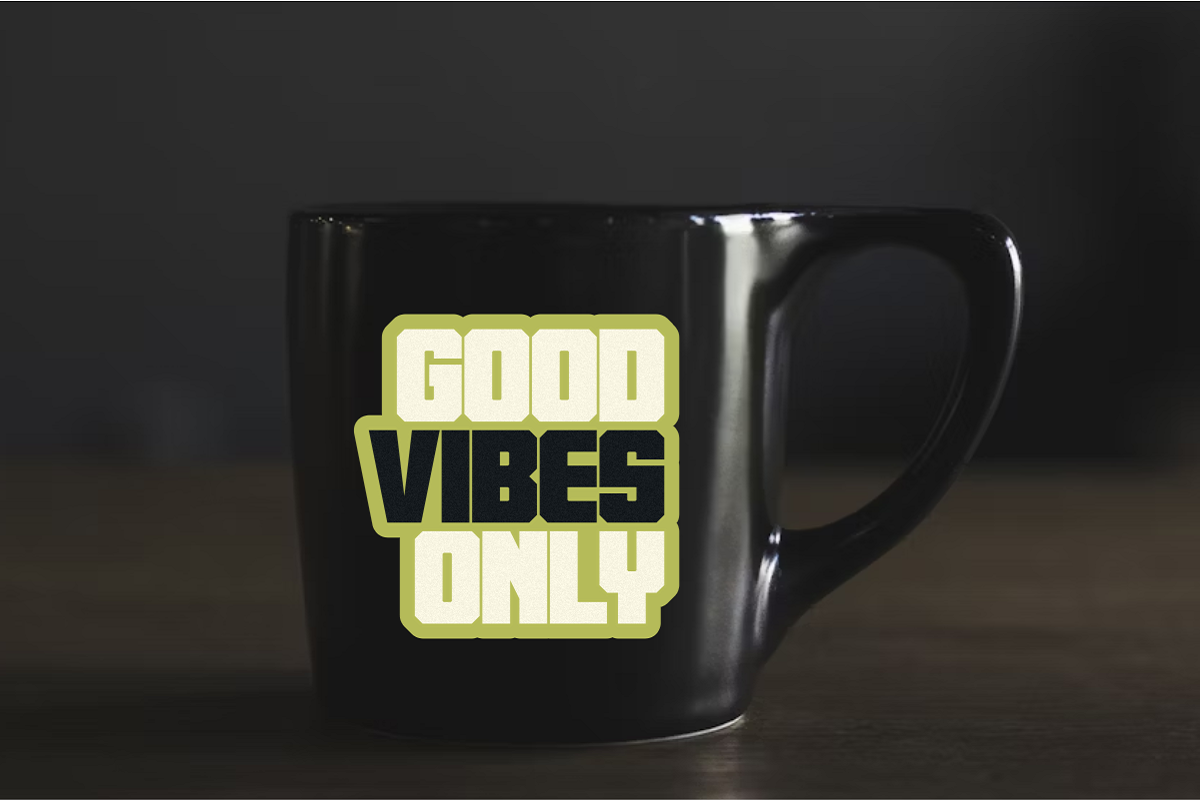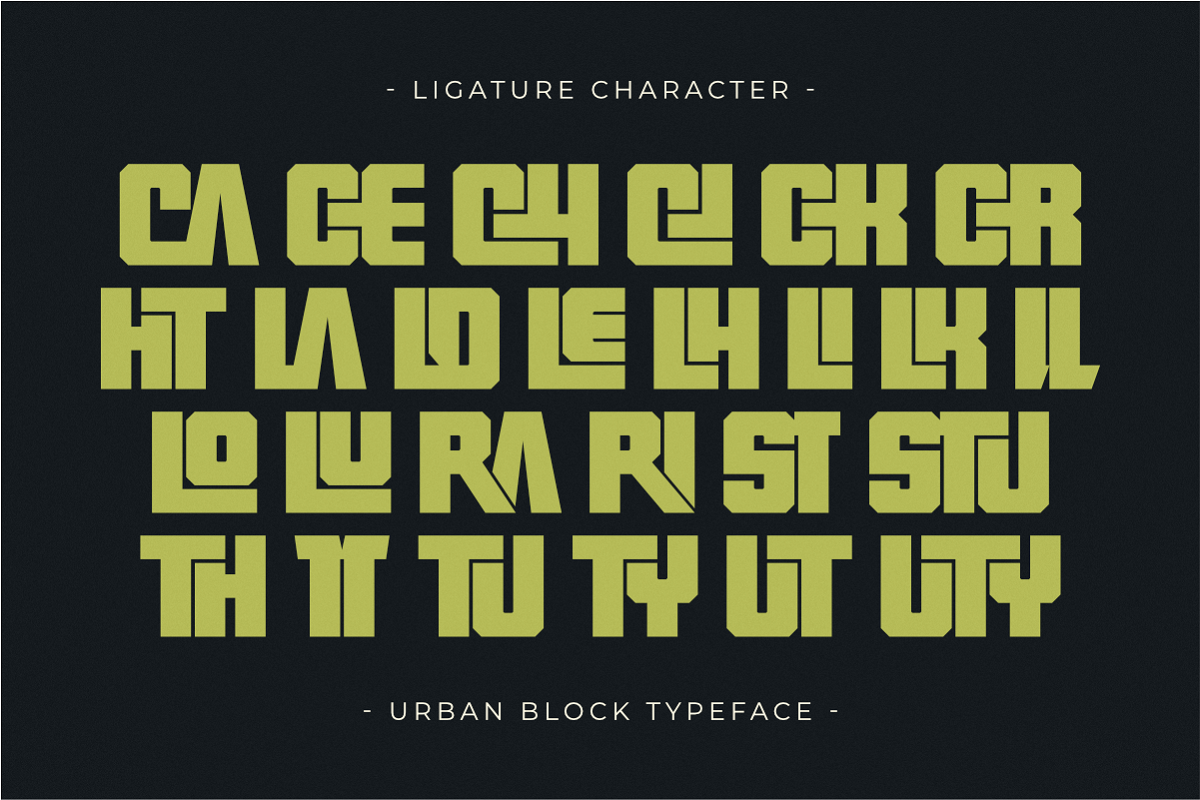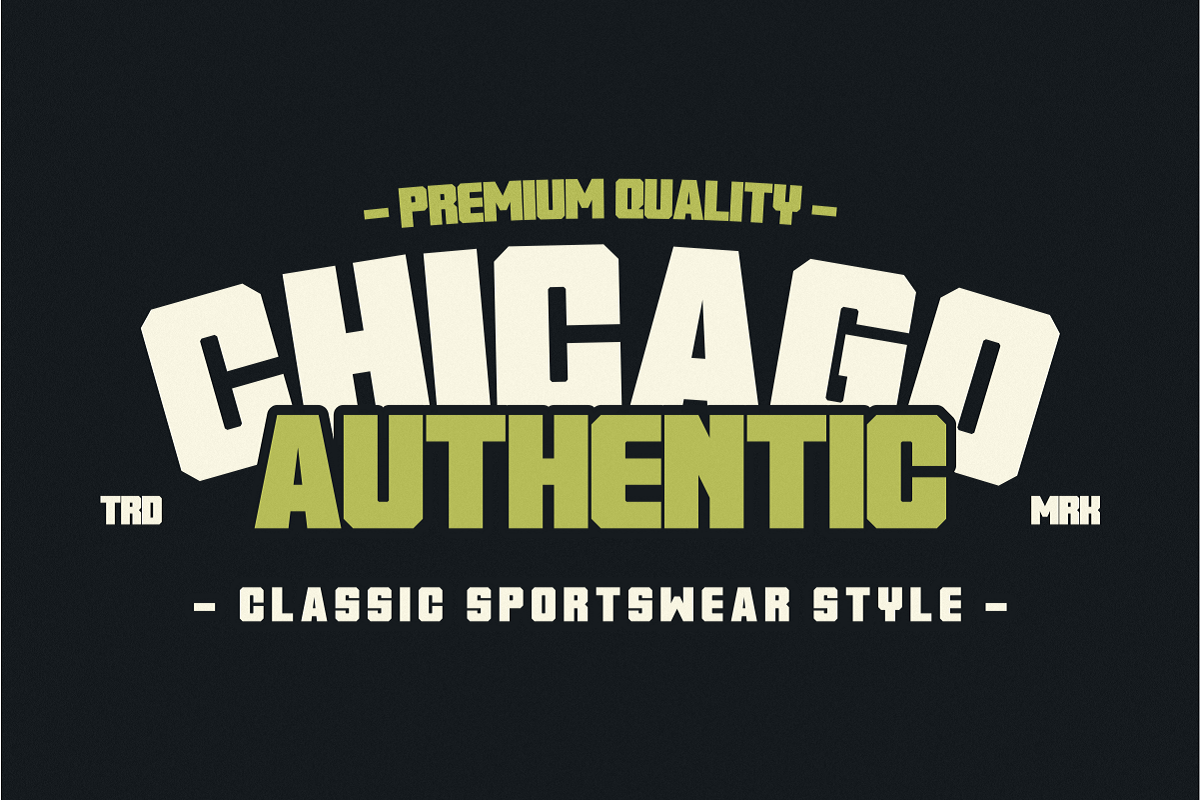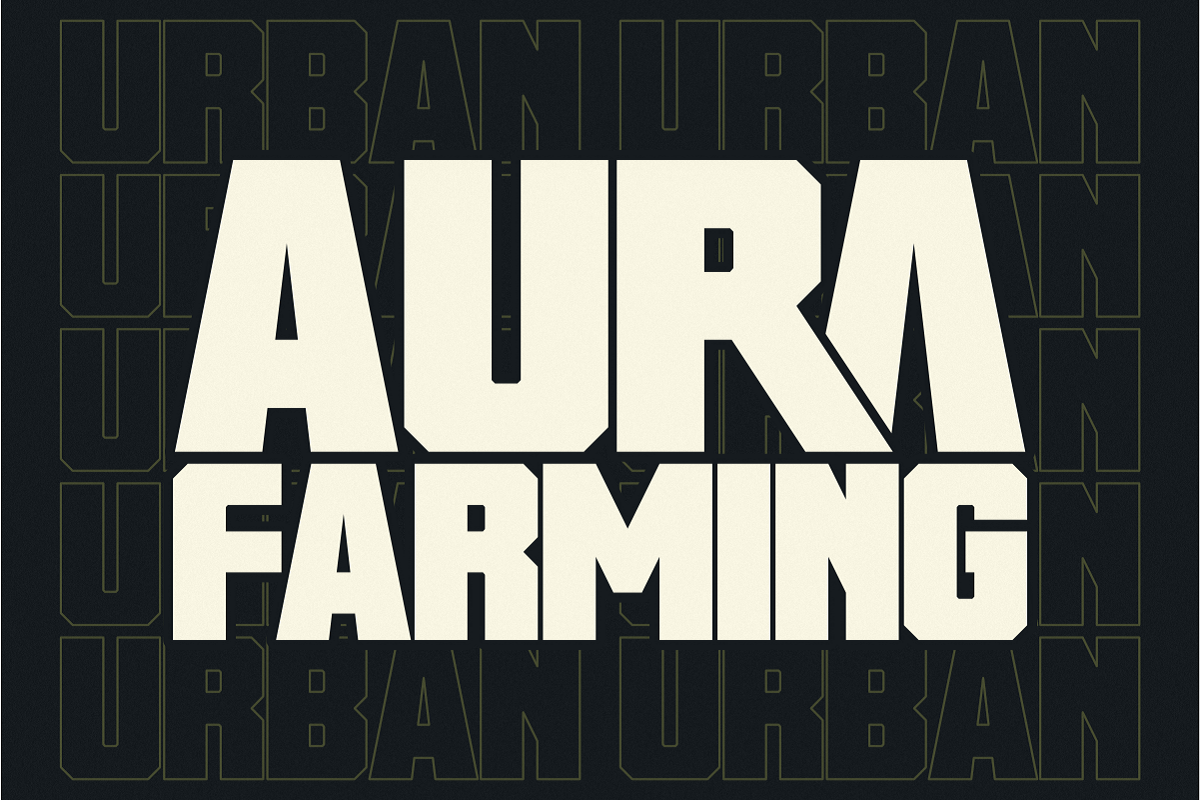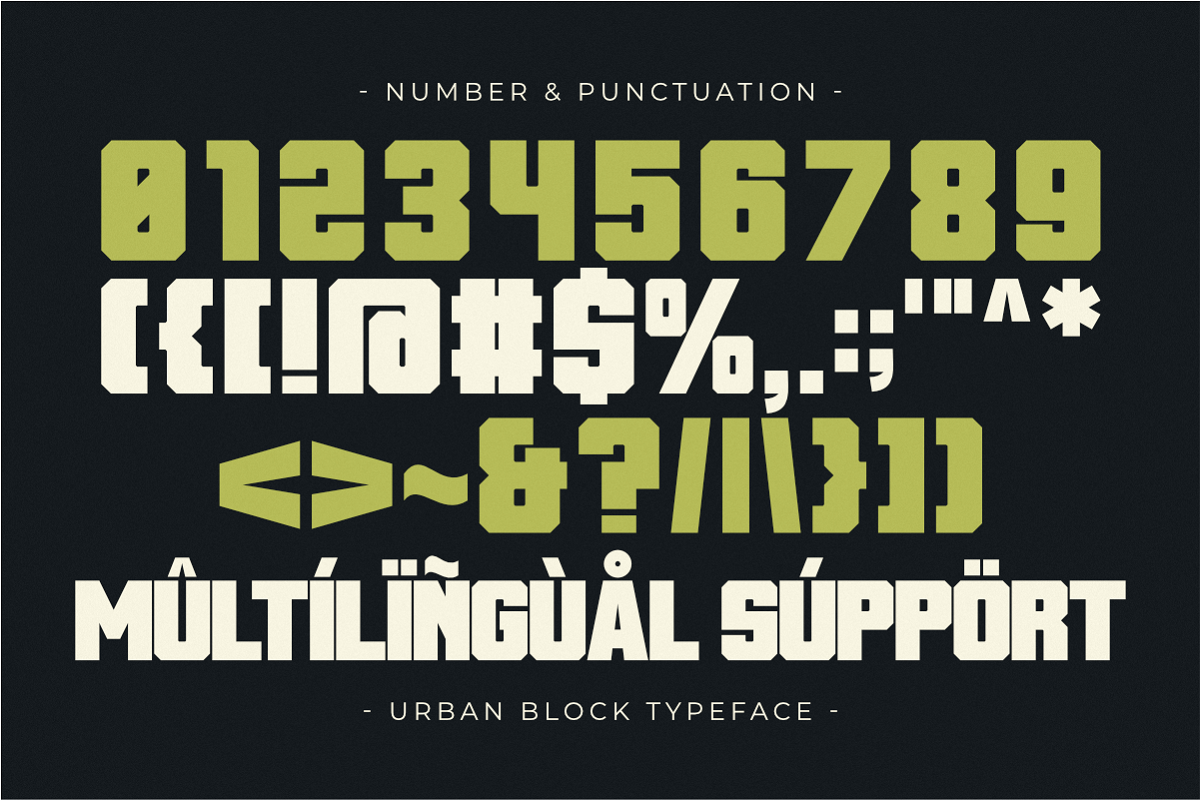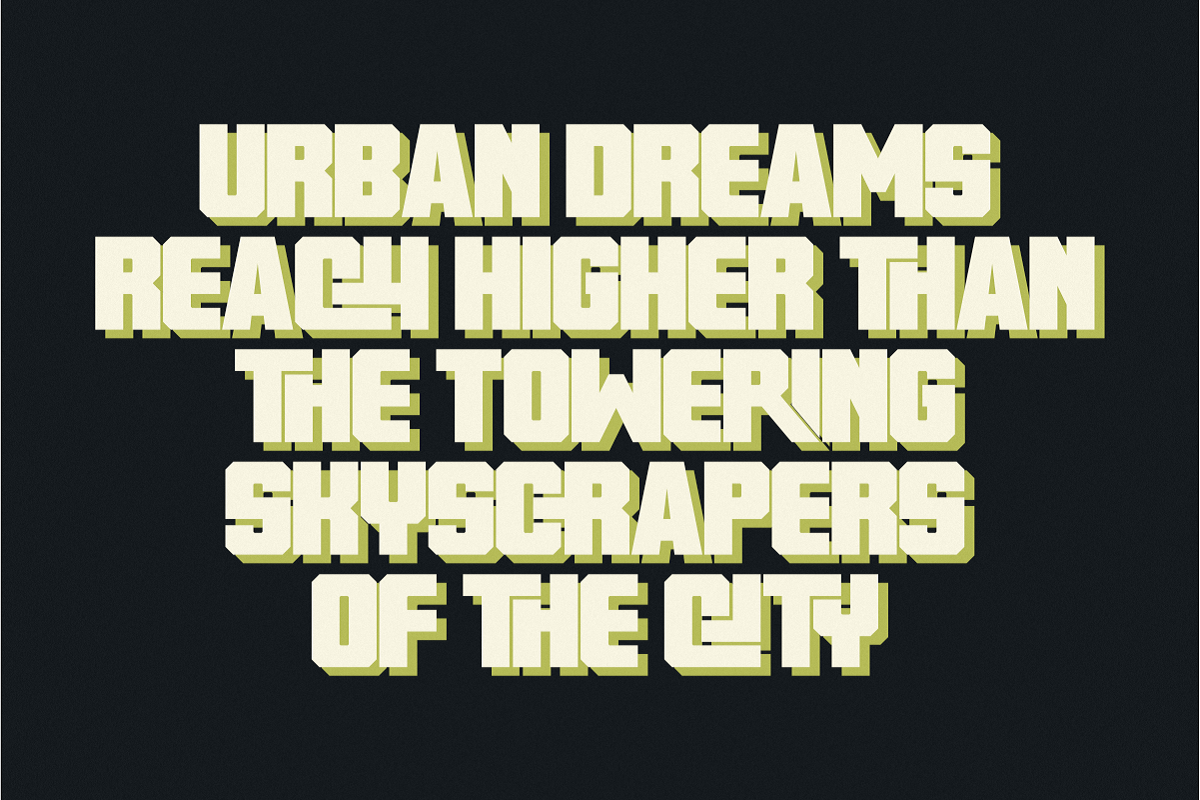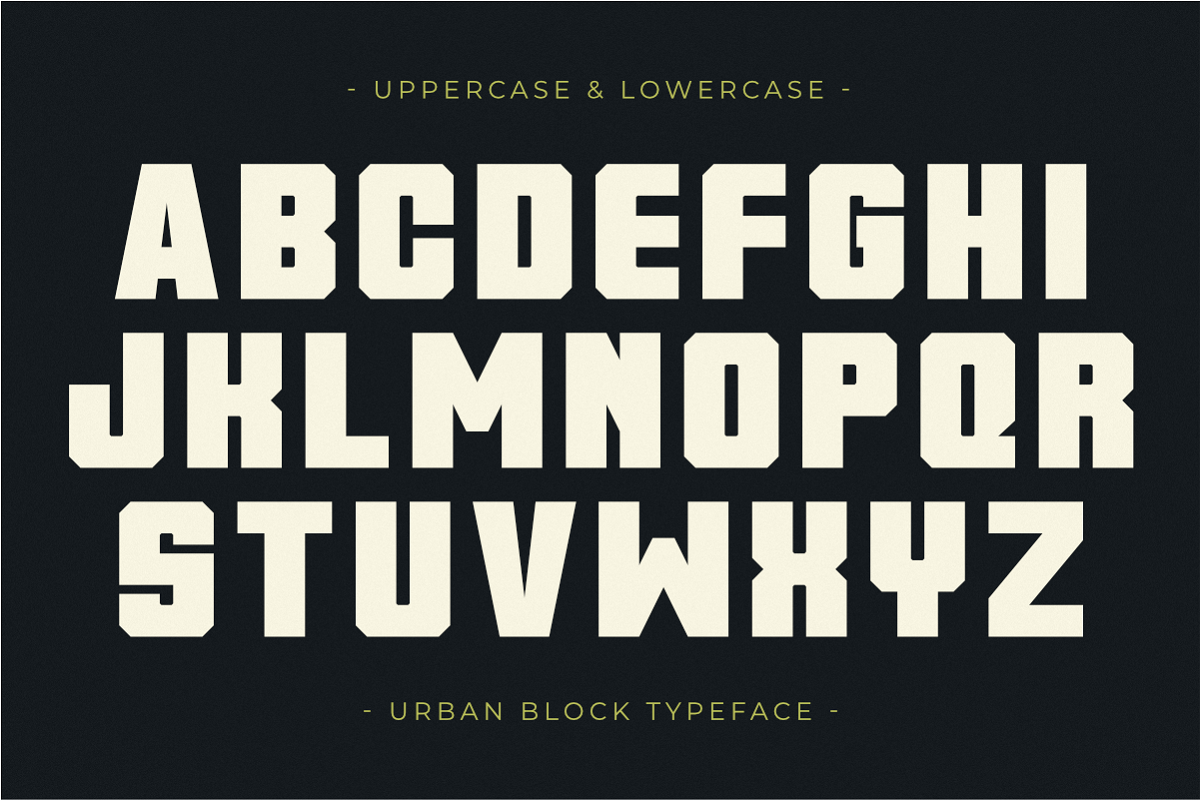
Urban Block - Bold Display Sans
Urban Block is a heavy-duty and commanding Bold Display Sans Serif font built for the modern urban landscape. Featuring a massive, blocky structure and ultra-thick strokes, this all-caps typeface is engineered for high-impact streetwear branding, grit-heavy sports logos, massive event posters, and industrial headlines. Its clean yet dominant geometric design ensures maximum readability and a fearless visual presence, making it an essential tool for merchandise, social media graphics, and any project that requires a strong, concrete-solid aesthetic.